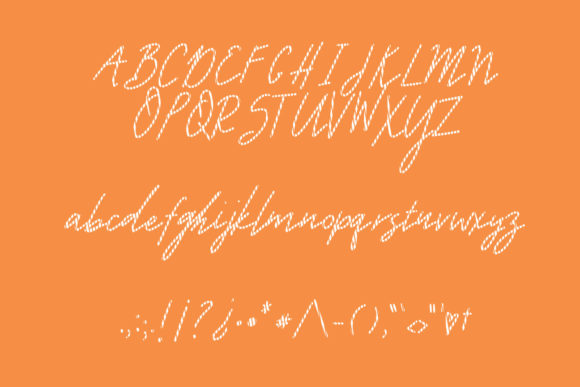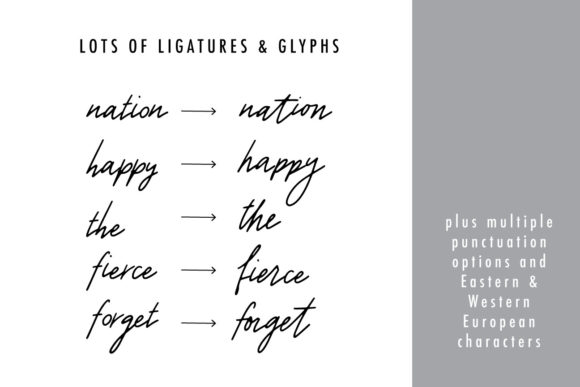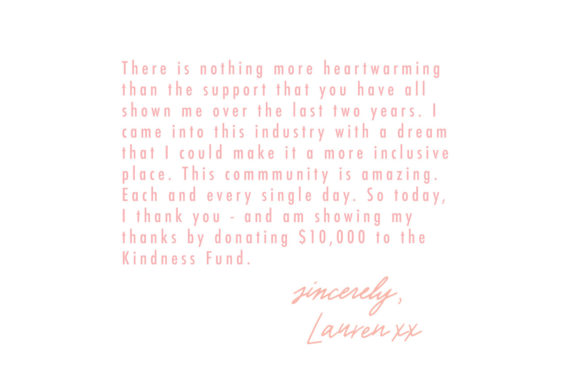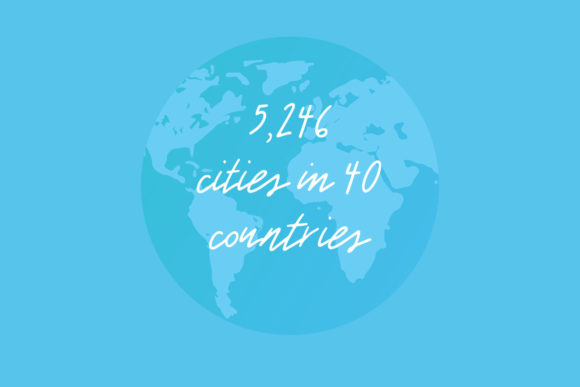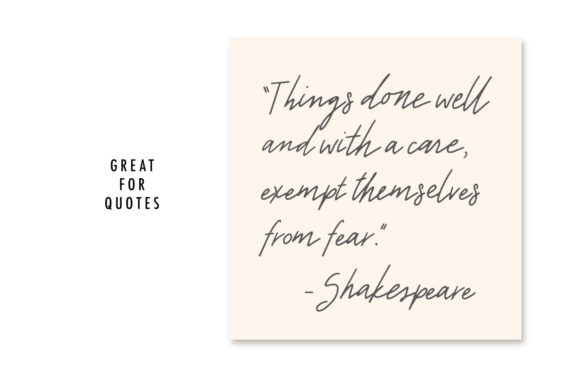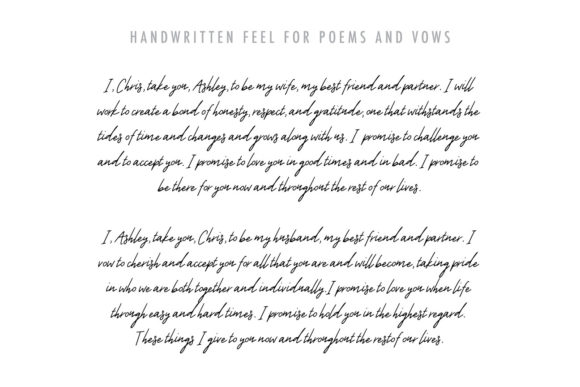
Ursula Script Font
About Ursula Script Font
Ursula Script has a unique, fashionable handwritten font, with a versatility for multiple products. It has great legibility for print and specialty uses. Whatever the topic, this font will be a wonderful asset to your font library, as it has the potential to enhance any creation.